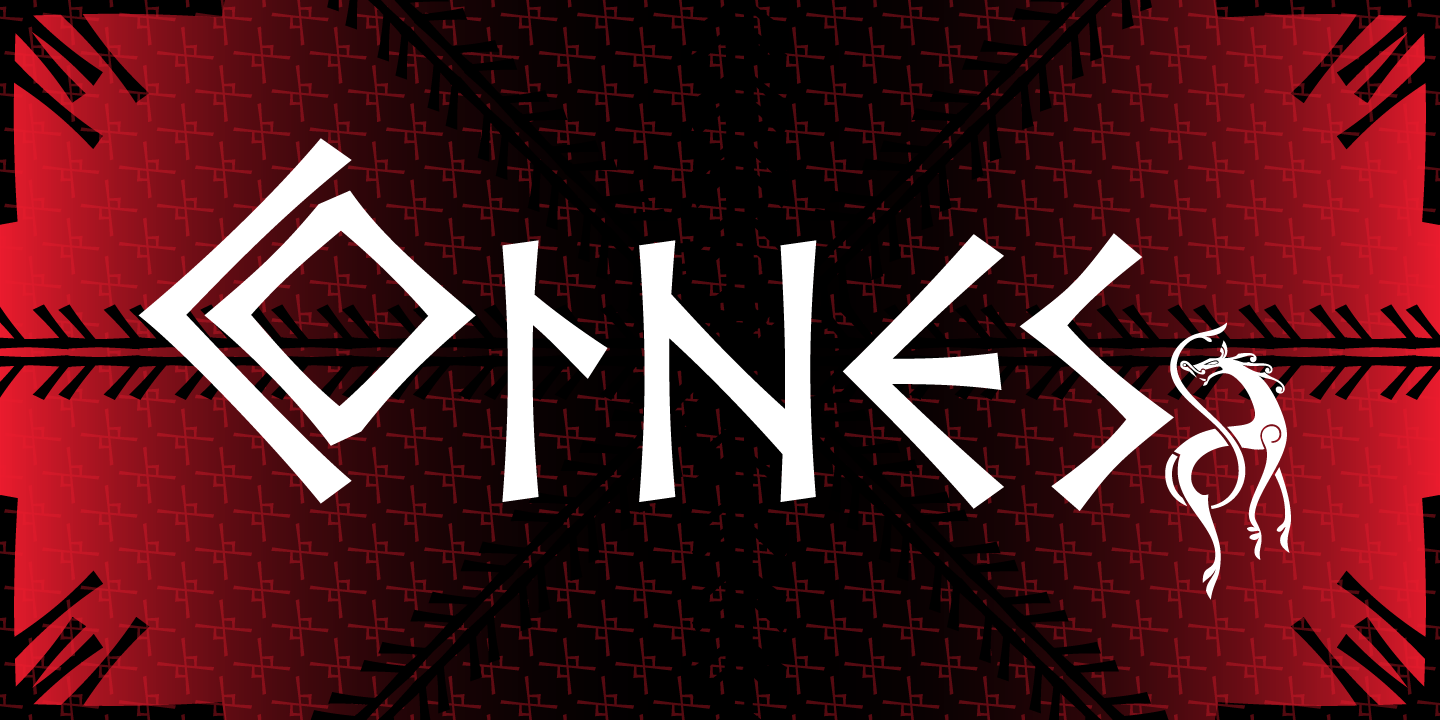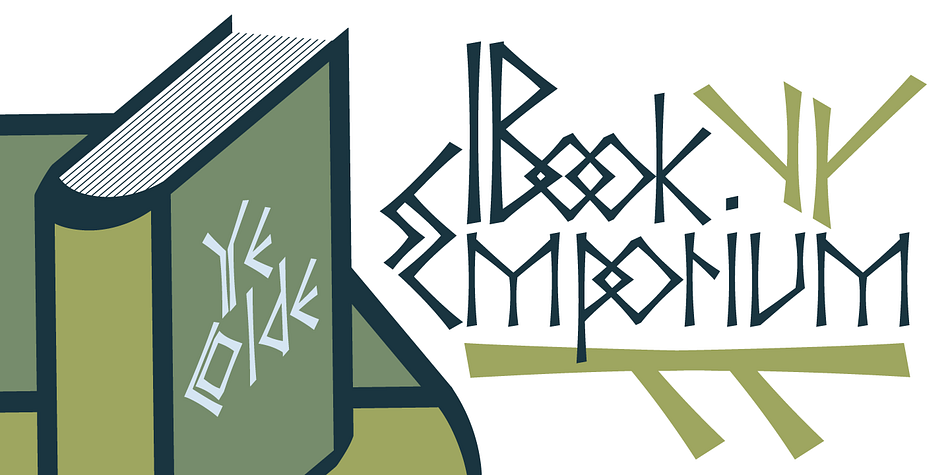
P22 Ornes
P22 Ornes is a novelty and arts and crafts font family. This typeface has thirteen styles and was published by International House of Fonts.
Ornes is inspired by the runic alphabet with ornamentation based on the woodcarvings of the Urnes Stave Church (Norway), an old wooden church from approximately 1150 CE. The woodcarvings and their symbolism reach back to the pre-Christian era.
The Ornes Pro styles each contain the runic alphabet, ornamented caps, small caps, ornamented small caps and other pro OpenType features (as shown on the “Pro” tab). Ornes Ornamented Rustic Pro features a subtle uneven lowercase, but does not include a set of regular uppercase characters.